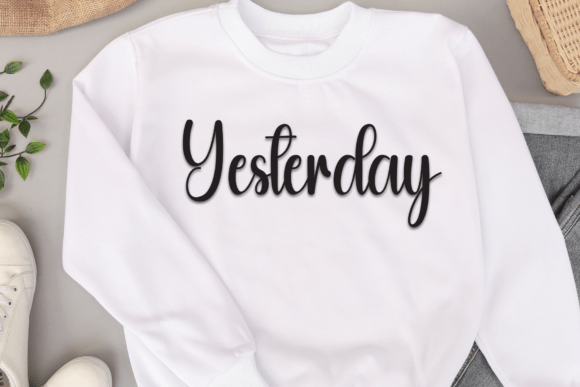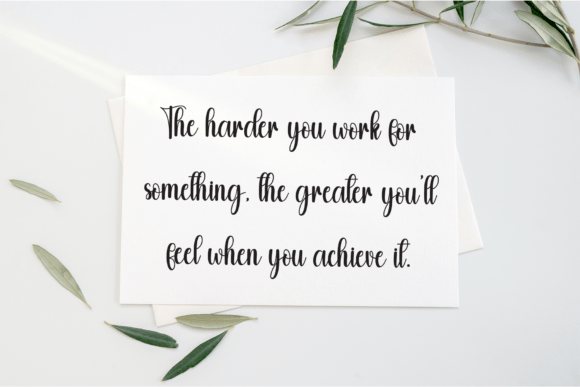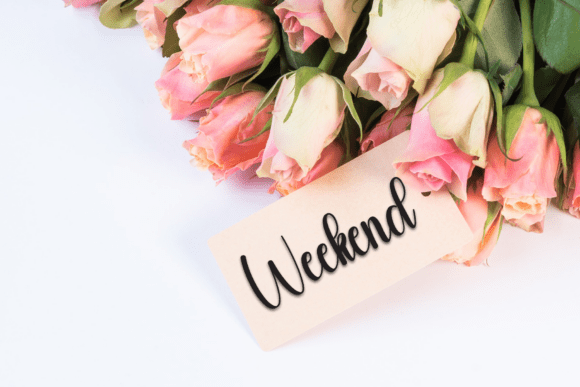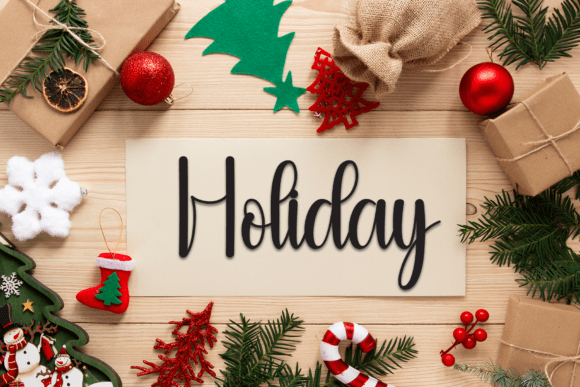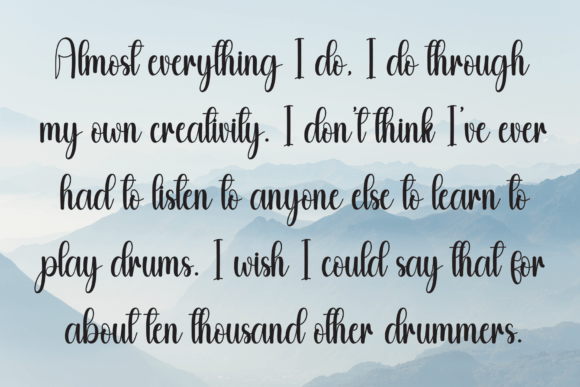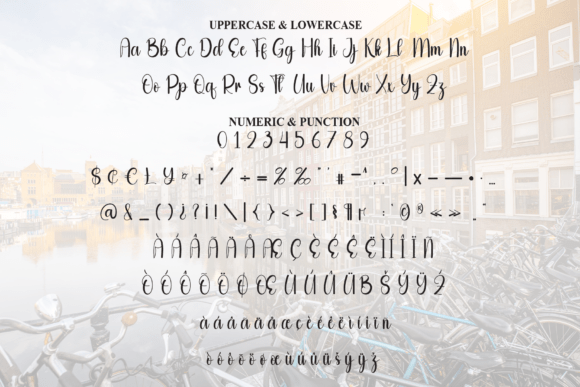
Introducing Amsterdam Font: Elevate Your Designs with Elegance and Playfulness
In the world of typography, fonts play a crucial role in conveying the tone and personality of a design. For designers and crafters seeking a typeface that embodies modern elegance and a playful touch, look no further than the Amsterdam Font. This stylish handwritten script font is designed to bring a personal feel to any project, making it an ideal choice for logos, packaging, and invitations.
The Essence of Amsterdam Font
Amsterdam Font is a masterpiece of modern typography, boasting fluid strokes and charming curves that dance across the page. Its unique blend of sophistication and playfulness makes it an excellent addition to any design portfolio. Whether you’re working on a luxury brand, a boutique product, or a special event invitation, this font is sure to leave a lasting impression.
Key Features of Amsterdam Font
- Fluid Strokes: Amsterdam Font features smooth, connected strokes that give it a natural, handwritten feel.
- Charming Curves: The font’s curves are carefully crafted to add a touch of elegance and sophistication to any design.
- Playful Touch: Amsterdam Font’s playful undertones make it perfect for designs that require a bit of whimsy and personality.
- Versatile: This font is suitable for a wide range of design applications, from logos and packaging to invitations and more.
Why Choose Amsterdam Font?
With so many fonts available, why choose Amsterdam Font for your next project? Here are just a few reasons:
- Unique Personality: Amsterdam Font brings a distinct personality to any design, setting it apart from more traditional typefaces.
- Easy to Read: Despite its elegant and cursive nature, Amsterdam Font remains highly legible, making it perfect for body text and headlines.
- Customizable: With its extensive character set and multiple language support, Amsterdam Font can be tailored to suit your specific design needs.
Design Applications for Amsterdam Font
Amsterdam Font’s versatility makes it an excellent choice for a variety of design applications, including:
- Logos: Create a lasting impression with a custom logo that showcases your brand’s personality and style.
- Packaging: Elevate your product packaging with a font that exudes sophistication and elegance.
- Invitations: Make your special event invitations truly unforgettable with Amsterdam Font’s charming curves and playful touch.
Tips for Using Amsterdam Font Effectively
To get the most out of Amsterdam Font, consider the following tips:
- Pair with Contrasting Fonts: Combine Amsterdam Font with a contrasting font to create visual interest and hierarchy in your design.
- Experiment with Colors: Play with different color schemes to find the perfect match for your design and brand.
- Pay Attention to Spacing: Ensure that your text has sufficient spacing to maintain readability and visual flow.
Amsterdam Font is a stylish and versatile typeface that can elevate any design with its modern elegance and playful touch. Whether you’re a designer, crafter, or DIY enthusiast, this font is sure to become a valuable addition to your toolkit. With its fluid strokes, charming curves, and extensive design applications, Amsterdam Font is the perfect choice for anyone looking to add a personal touch to their projects.